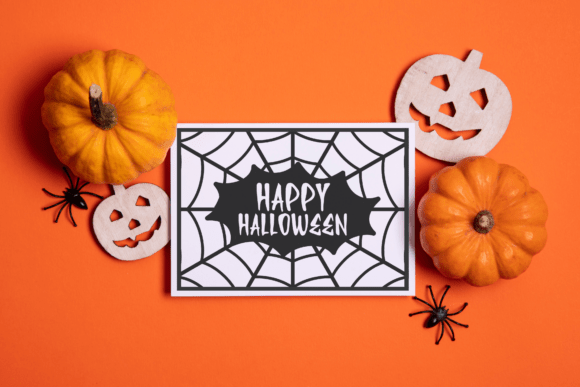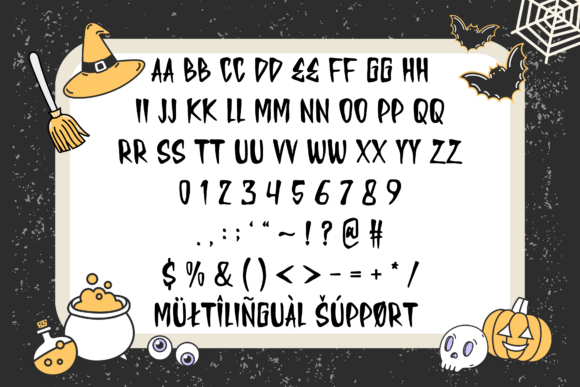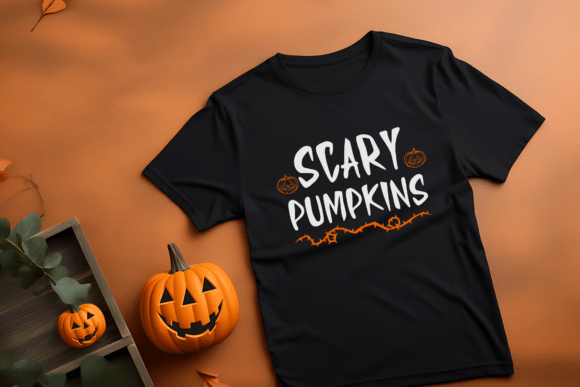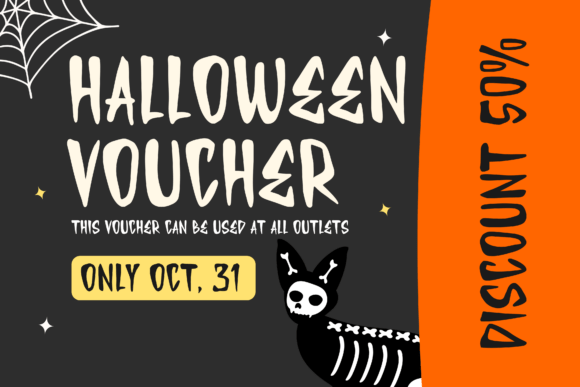
Introduction to Nifty Spells Font
As a designer, there’s nothing quite like the thrill of crafting a project that sends chills down the spine. You’re working on a Halloween design, pouring your heart and soul into every detail, when suddenly, the perfect font pops into your mind. That’s exactly what happens when you stumble upon the Nifty Spells Font – a font so eerie and captivating that it becomes the perfect companion for your most terrifying creations.
Whether you’re working on a haunted house invite, a horror poster, or a dark-themed project, the Nifty Spells Font is a design resource that will elevate your work to the next level. Its unique, hand-drawn style and twisted shapes evoke a sense of raw, unsettling charm that’s hard to find in other fonts. And the best part? It’s available for a free download, so you can add a touch of supernatural menace to your next creative project without breaking the bank.
With its high-quality design and transparent background, the Nifty Spells Font is a versatile tool that’s perfect for designers who want to create truly unique and captivating work. Whether you’re working on a commercial project or a personal creative endeavor, this font is sure to be a valuable addition to your design arsenal.
Nifty Spells Font
- High-quality, unique font design perfect for creative projects and designs.
- Features a transparent background, allowing for easy layering and customization in your design.
- Comes in a single size, ideal for various applications and design elements.
- Perfect for designers seeking a distinctive and creative design resource for their next project.
Honest Review: Nifty Spells Font
I recently stumbled upon the Nifty Spells Font, and I must say it’s been a game-changer for my creative projects. This font is perfect for designers looking for a unique and magical touch to their designs.
- Customizable: The font is highly customizable, allowing designers to adjust the size, color, and spacing to fit their creative vision.
- Perfect for creative projects: The font’s whimsical and mystical design makes it ideal for creative projects, such as fantasy novels, game design, or even wedding invitations.
⚠️ One limitation is that the font may not be suitable for corporate or formal designs, as its magical and mystical design may not be fitting for those types of projects.
Overall impression: I’m thoroughly impressed with the Nifty Spells Font. It’s a valuable addition to any designer’s toolkit, and I would highly recommend it to anyone looking for a unique and creative design resource.
Nifty Spells Font
The Nifty Spells Font is a unique and high-quality design resource perfect for creative projects that require a touch of magic. With its transparent background, this font is ideal for adding a touch of whimsy to your designs.
Tips for Getting the Most Out of Nifty Spells Font
Use the Nifty Spells Font in conjunction with other design elements, such as illustrations and graphics, to create a cohesive and visually appealing design.
Experiment with different font sizes and colors to add depth and interest to your design.
The Nifty Spells Font is perfect for:
Designing children’s book covers and illustrations
Creating magical and whimsical branding materials